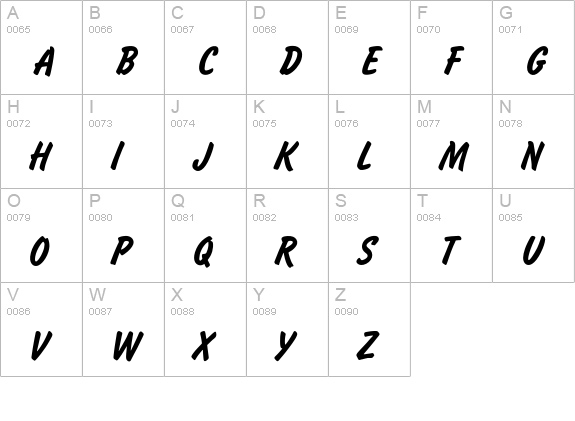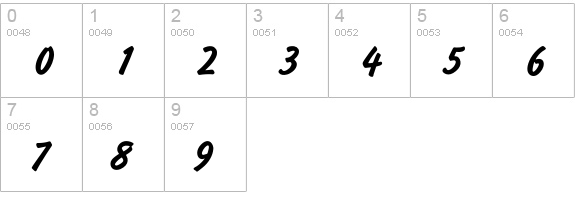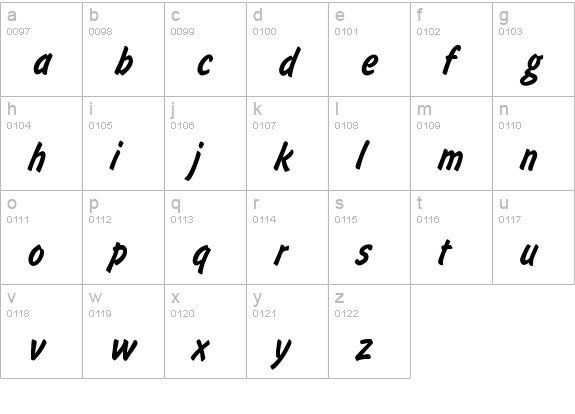
Slager Font Details
Slager font, a sleek and stylish typeface, is a true epitome of elegance and sophistication. With its clean lines and contemporary design, Slager font effortlessly captures attention and adds a touch of refinement to any project. This splendid font boasts a perfect balance between modernity and timelessness, making it ideal for a wide range of applications. Whether used in branding, packaging, editorial design, or any other creative endeavor, Slager font never fails to impress. Its versatility allows it to seamlessly adapt to various design styles, from minimalist to bold and daring. What makes Slager font even more remarkable is that it is freely available to download at FontsMarket.com. This means that designers, creatives, and typography enthusiasts can easily access and harness the full potential of Slager font without any cost or restrictions. With its extensive character set and multiple weights, Slager font offers endless possibilities for customization and creativity. Its legibility and readability ensure that every word and letter stands out with clarity, making it an excellent choice for both print and digital projects. Whether you are working on a professional design project or simply exploring your artistic side, Slager font is the perfect companion. Its elegant aesthetic and free availability make it an invaluable asset in any designer's toolkit. So why wait? Download Slager font now and unlock a world of inspiration and creative possibilities.